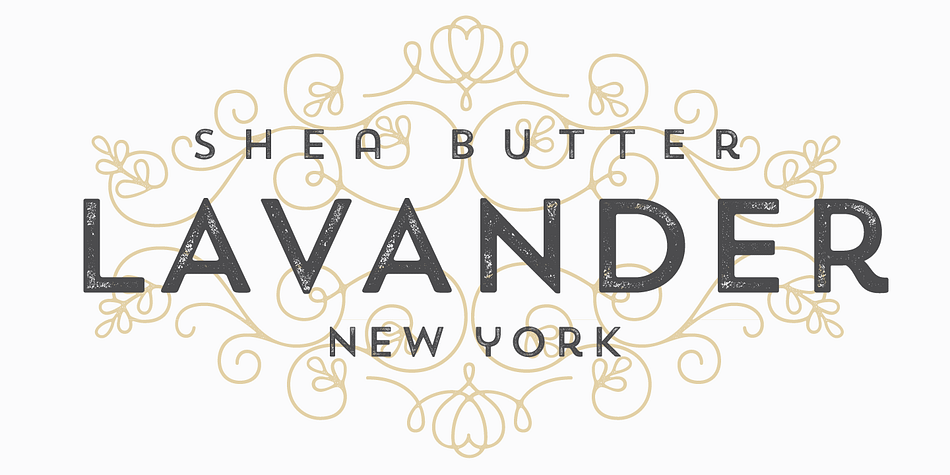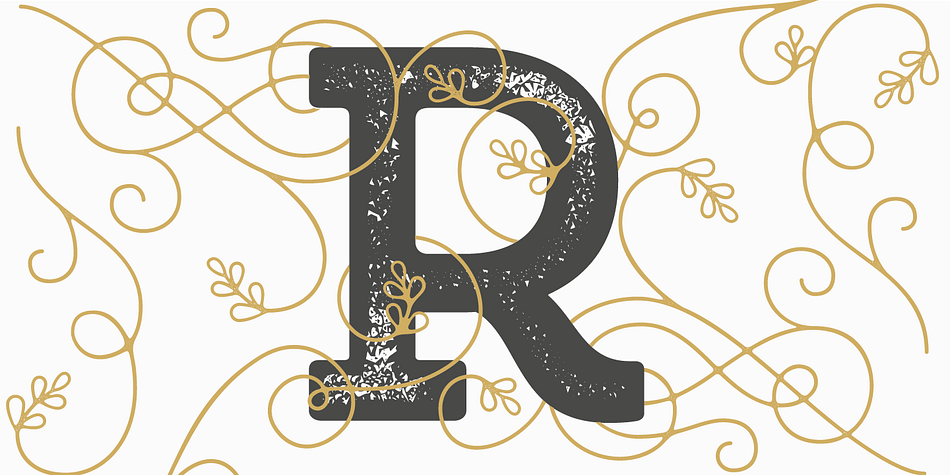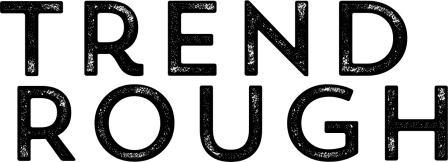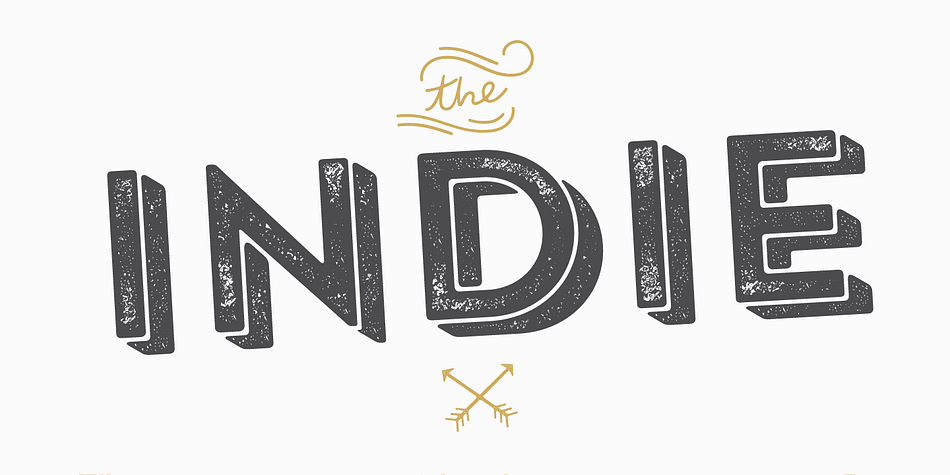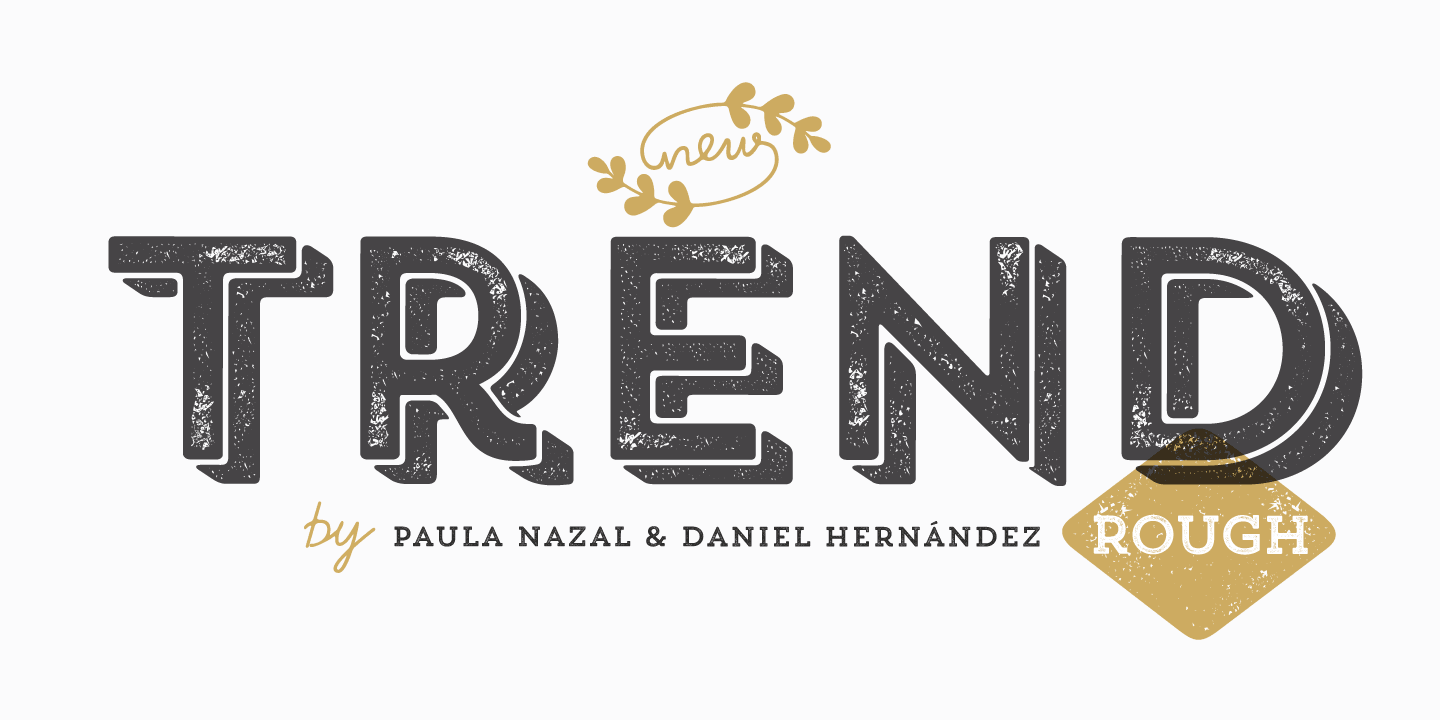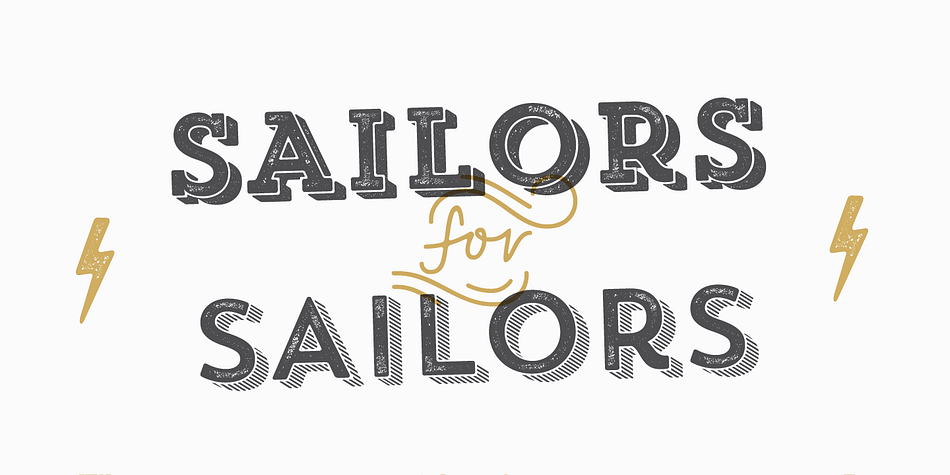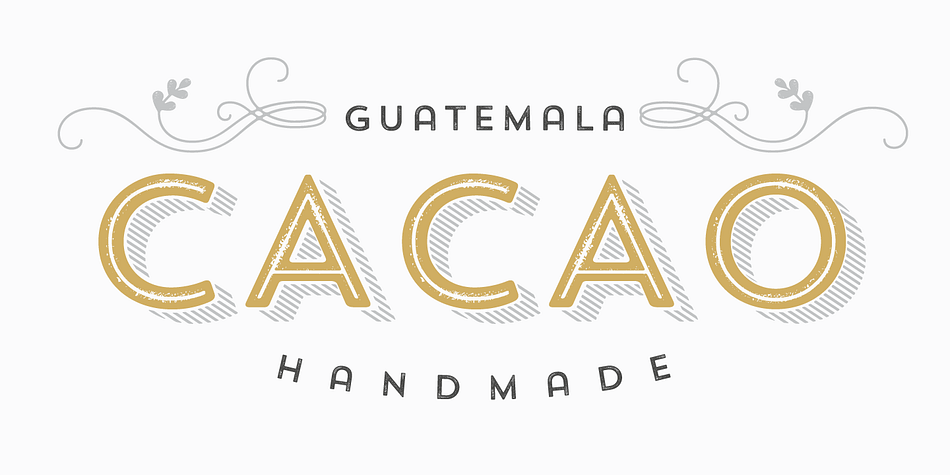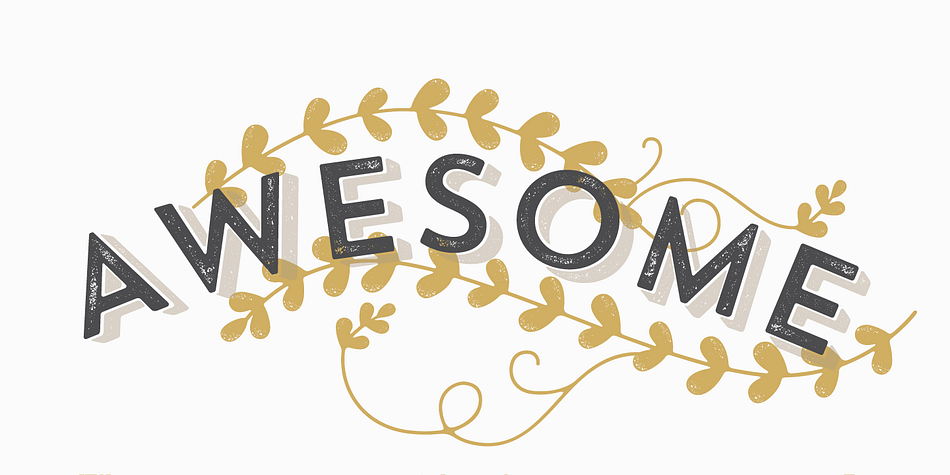
Trend Rough is a multiple classification font family. This typeface has twenty-four styles and was published by Latinotype.
Trend Rough, Trend & Trend Handmade is a font made of layers, taking as a basis a sans and a slab font.
It is the result of observation, search and study of the last global trends. Trend tries to capture the aesthetics of fashion or even fashion itself, integrating elements of a very popular and current trend.
It is a typeface designed to be used without need to add anything external to it, because it has all components required for this.
Trend is trending.
Styles | Display Sans, Display Slab, Grunge, Dingbat |